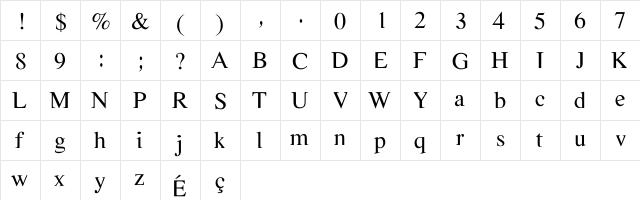
SoftTimes Regular
Design Context for SoftTimes Typeface
SoftTimes takes a measured approach to typography — its balanced proportions and neutral character make it a reliable workhorse for both digital and print work.
Pro Tip: Pair SoftTimes with a font of contrasting weight or personality to build a more expressive typographic hierarchy.